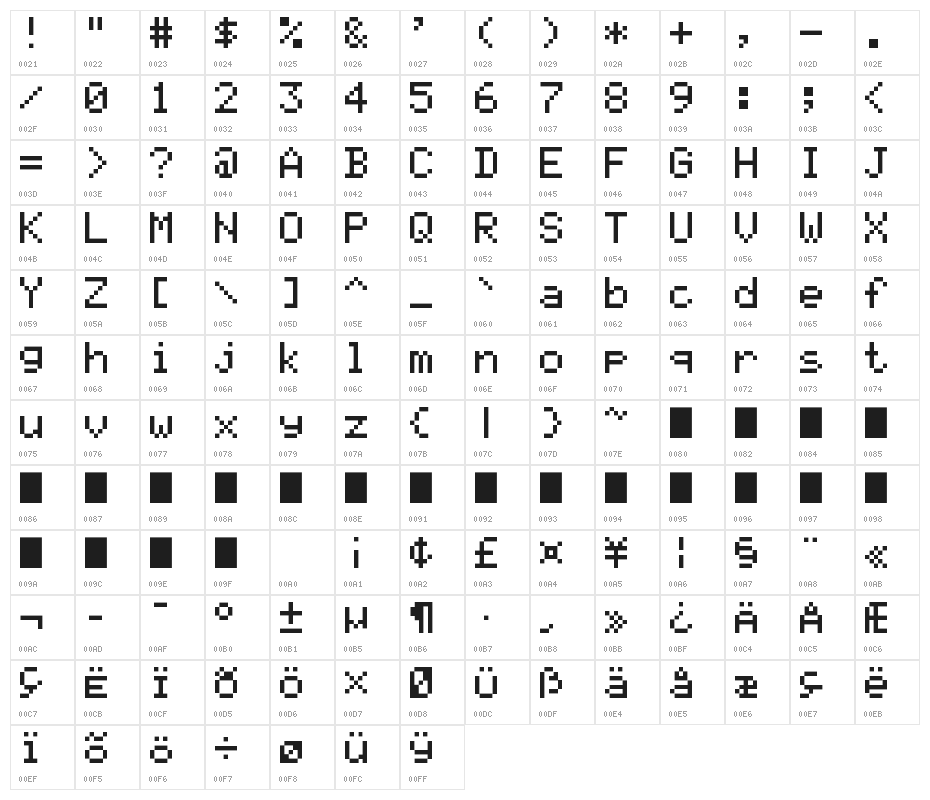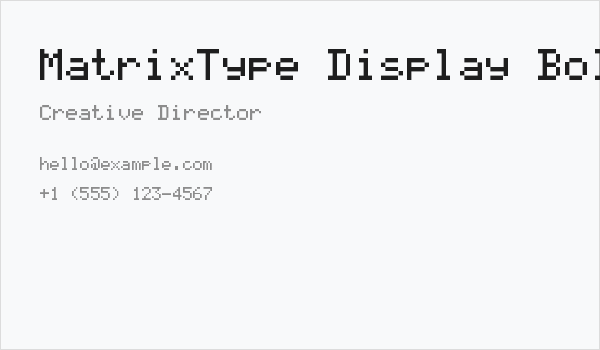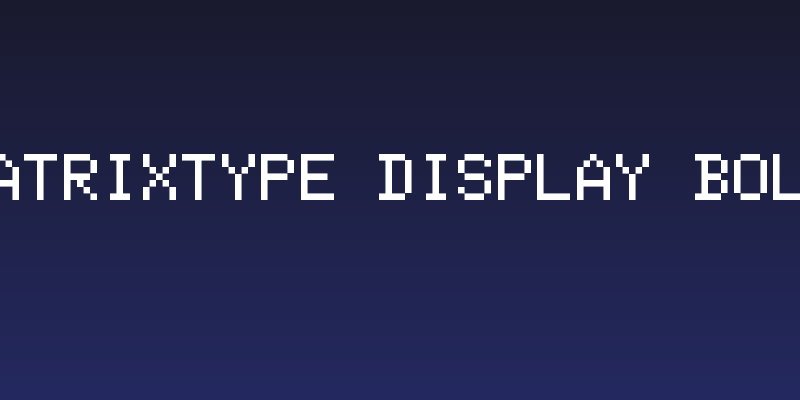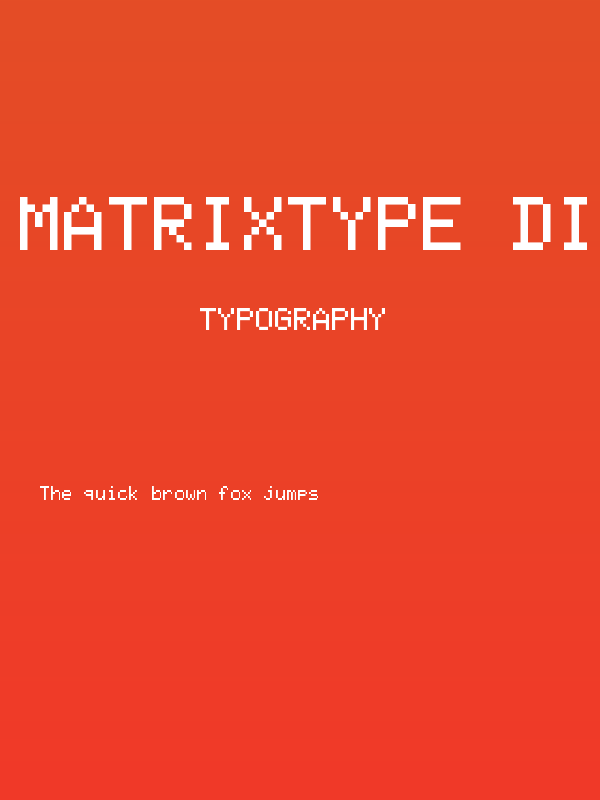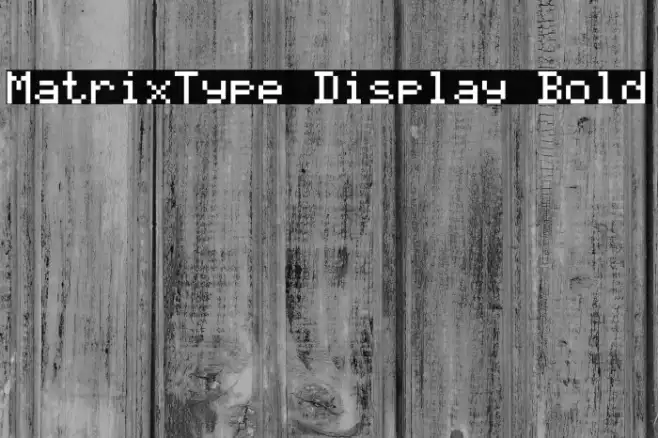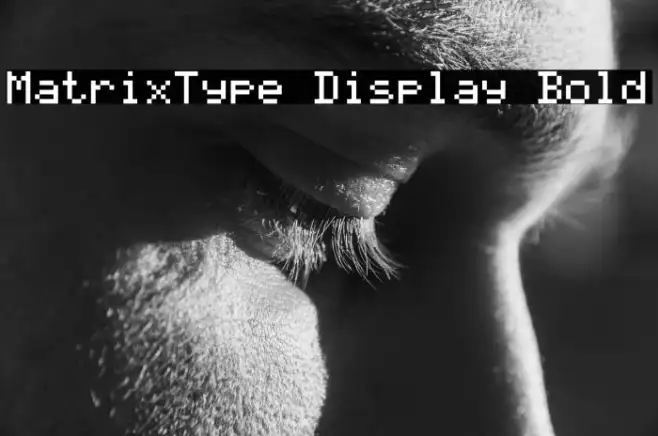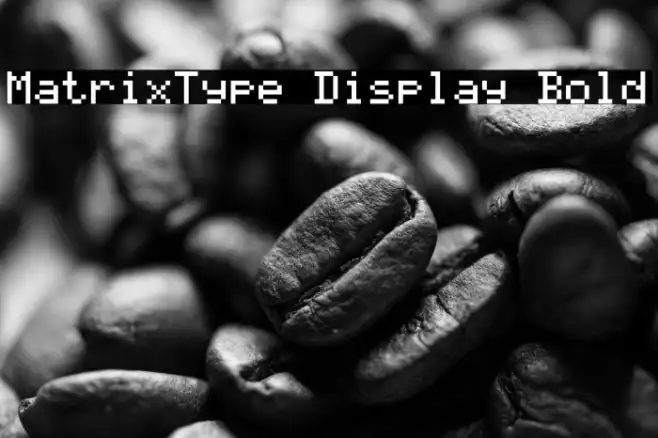
MatrixType Display Bold Font
MatrixType Display Bold Description
This font features a pixelated, grid-like design reminiscent of early digital displays and retro video games. Each character is constructed with a uniform grid pattern, giving it a blocky and geometric appearance. The uppercase and lowercase letters maintain a consistent height, contributing to a monospaced feel. The numerals and special characters follow the same structured design, ensuring uniformity across all glyphs. This style evokes a sense of nostalgia and is ideal for projects that aim to capture a vintage digital aesthetic.
| Use Case | Logos, Headlines, Digital Art |
| Proposed Projects | Ideal for retro video game designs, digital art projects, tech-themed posters, and any creative work that seeks a vintage digital look. |